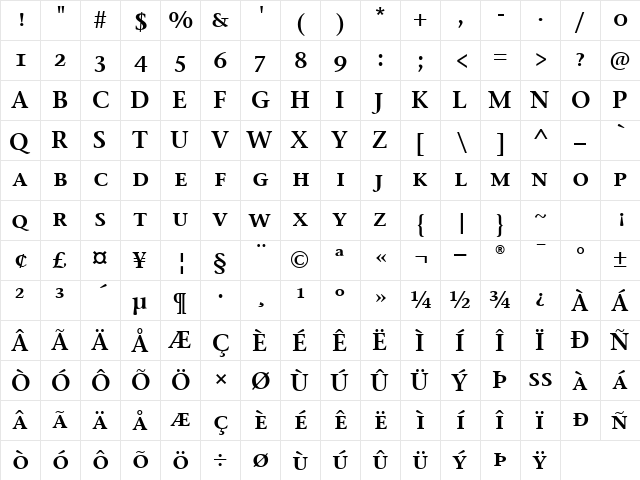
Stone Serif Sem SC ITC TT Semi
Design Context for Stone Serif Sem SC ITC TT Typeface
Stone Serif Sem SC ITC TT carries the refined structure of traditional serif typography, with bracketed terminals and considered proportions that communicate credibility and craft.